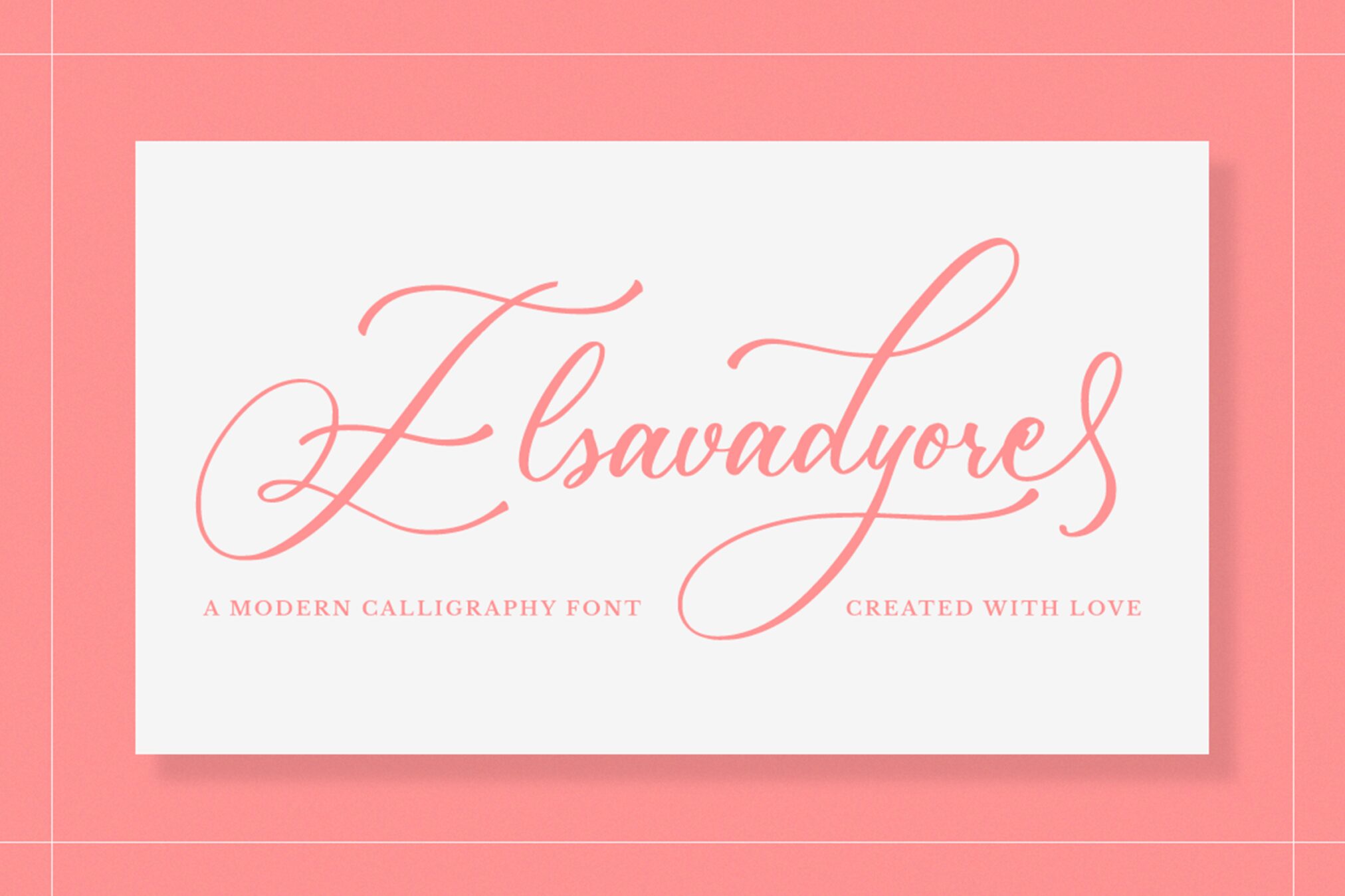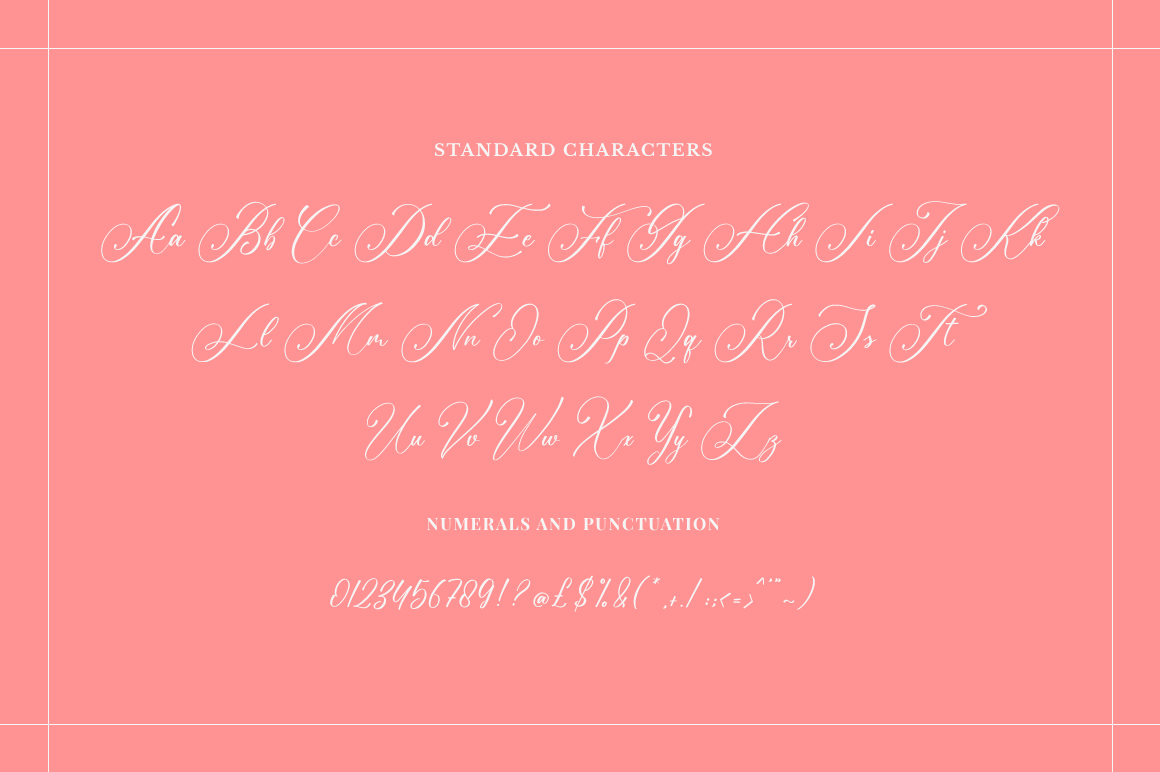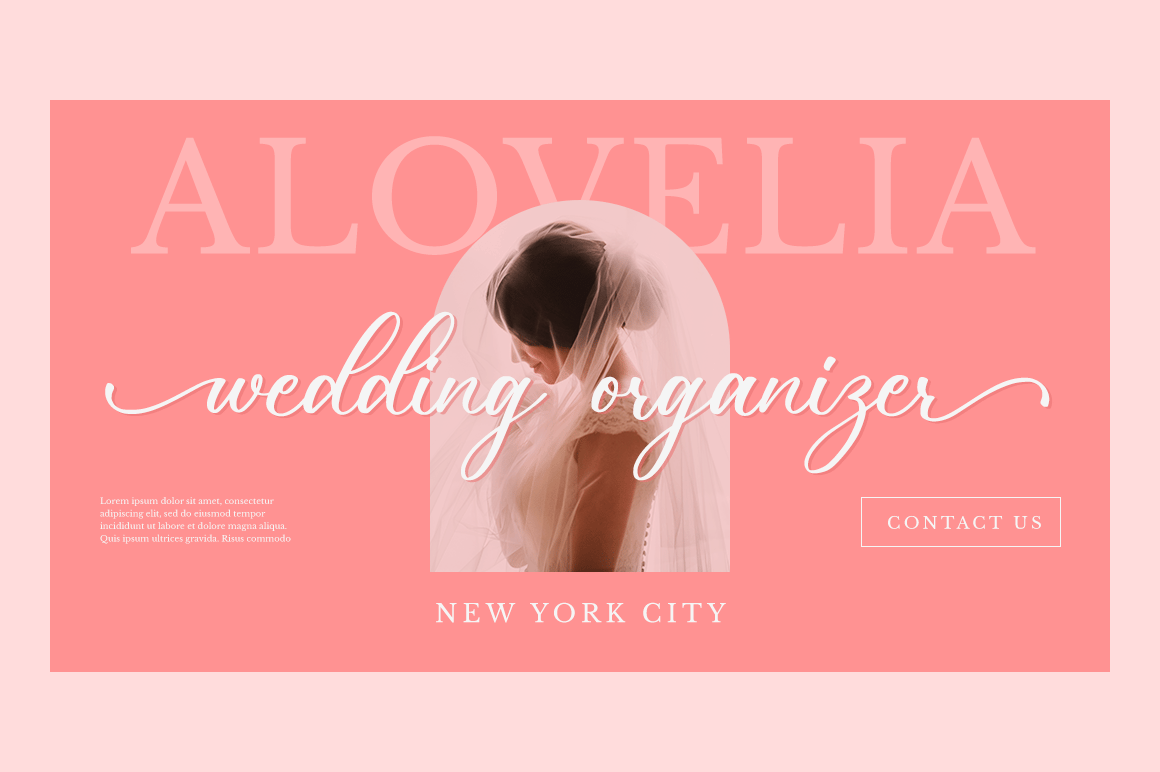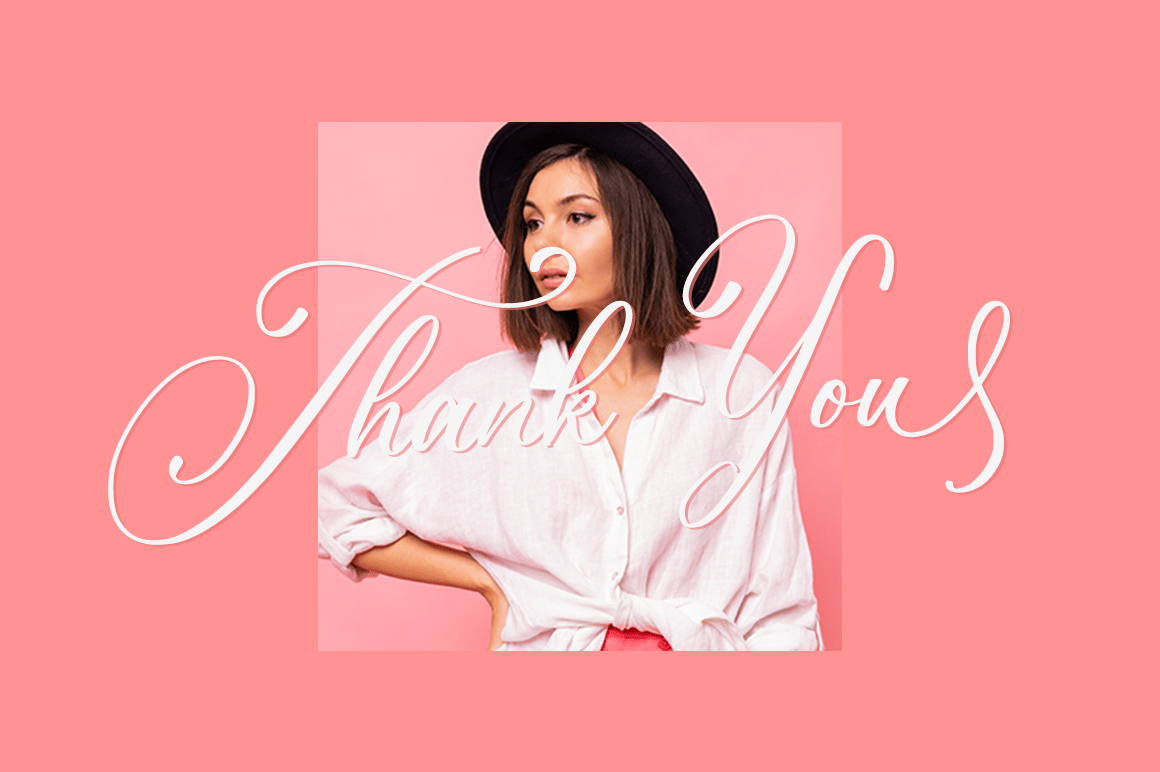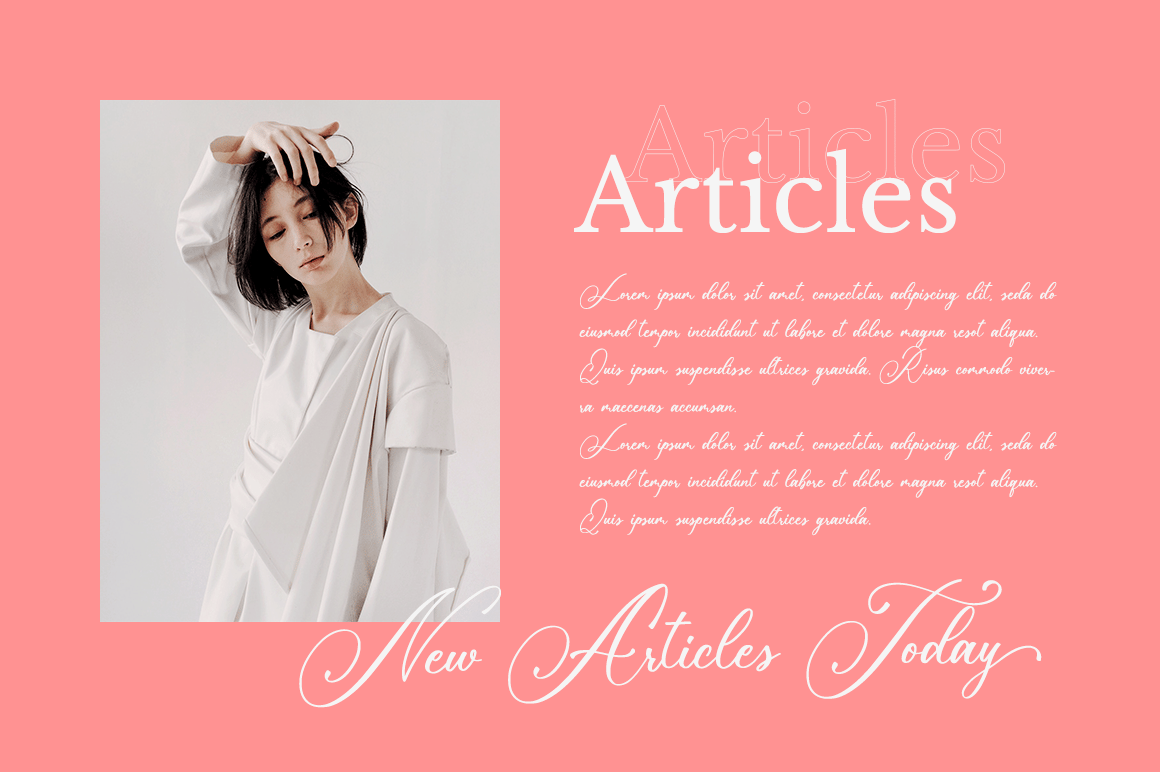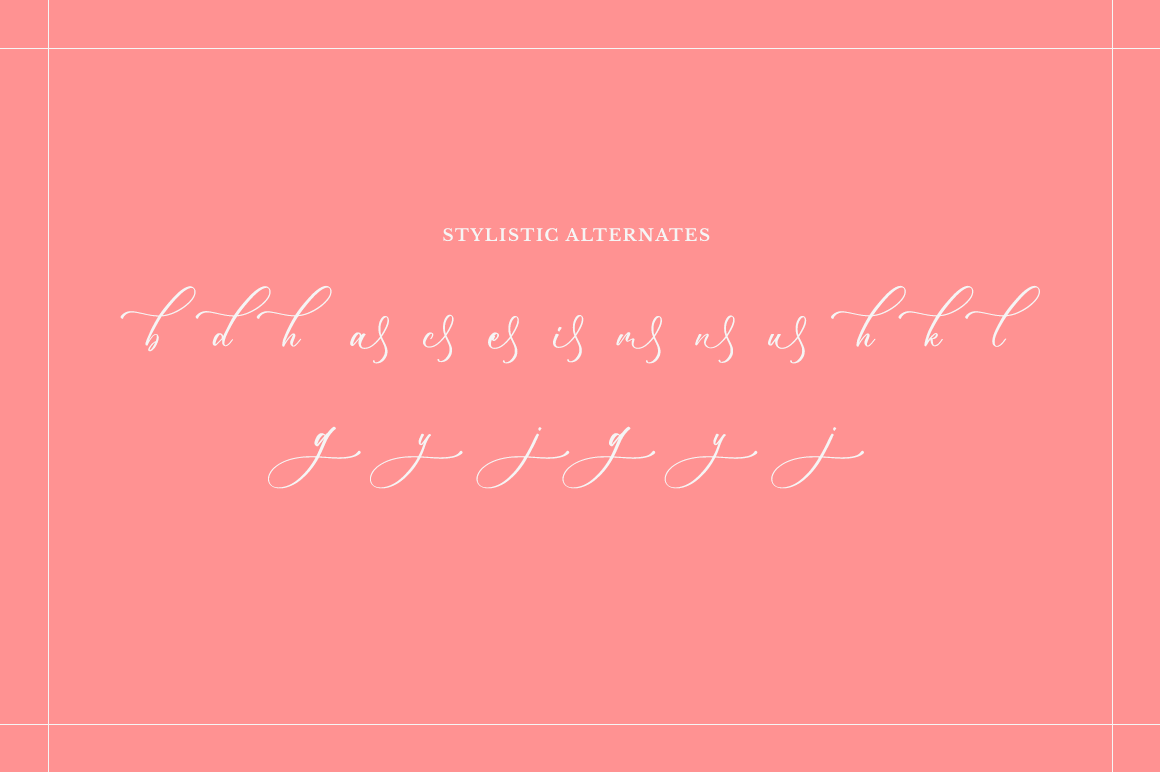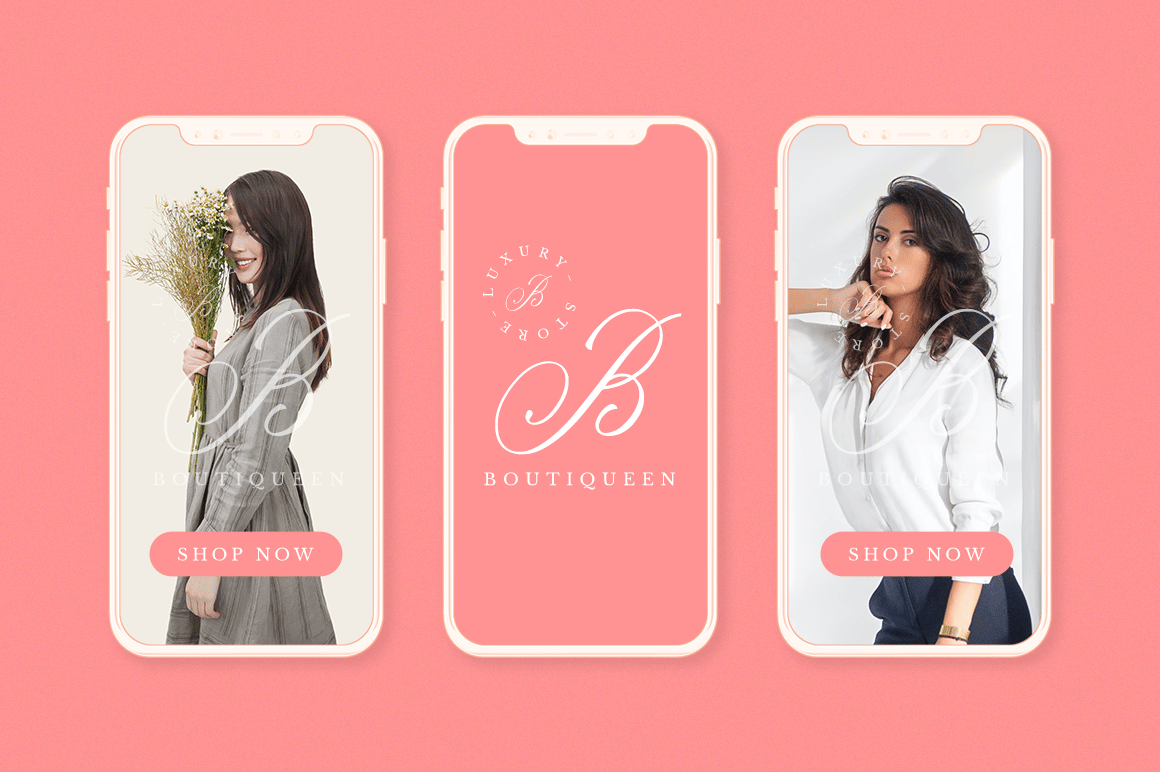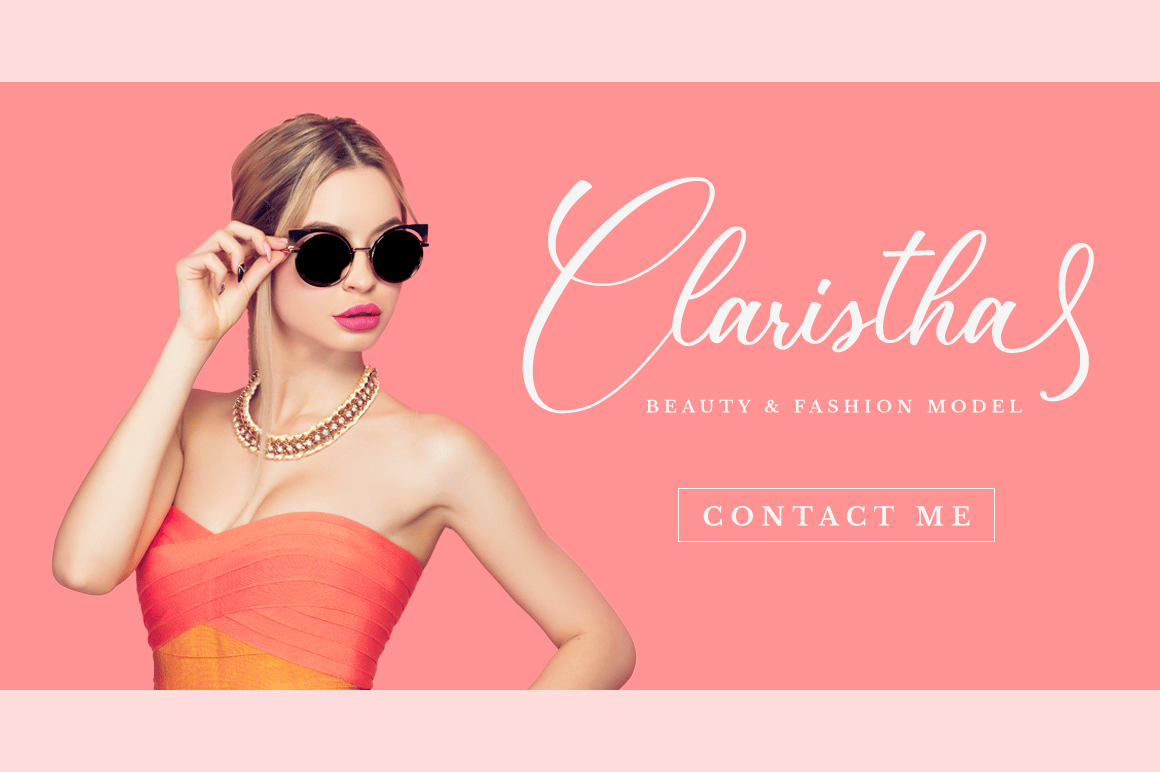
**Elsavadyore** is a lovely and delicate script font that exudes elegance and class. It is perfect for those who need a beautiful and refreshing look to their designs.
* Modern Handwritten Font
* Beautiful Swash (Ending tail)
* Beautiful Titling (Beginning tail)
* Special Ligatures
* Multilingual Support